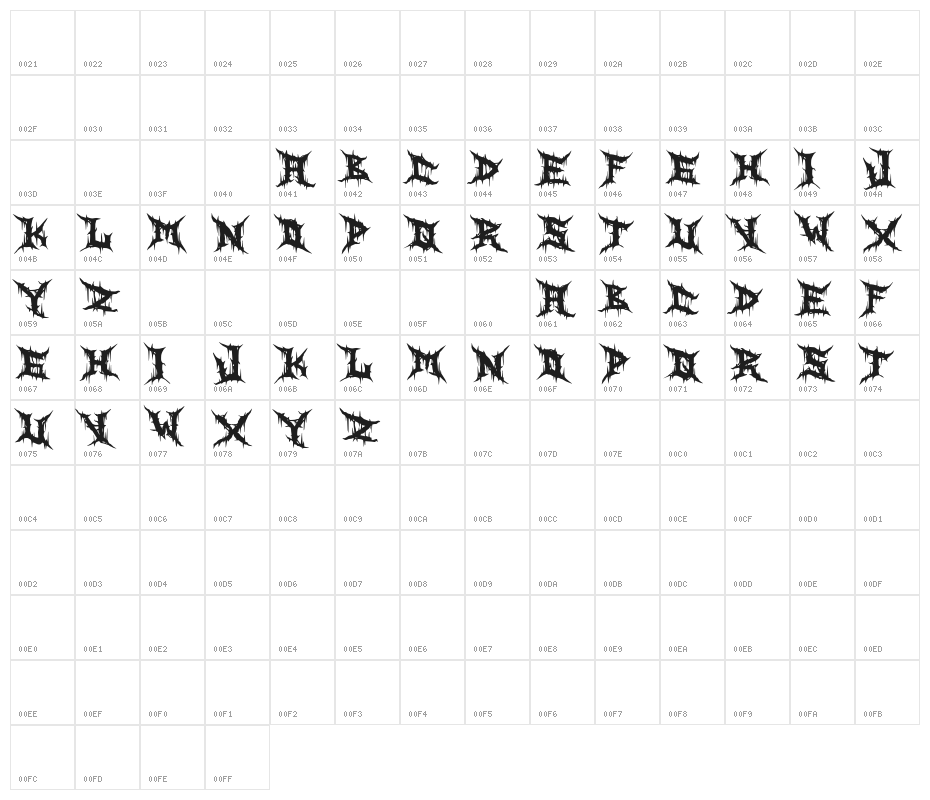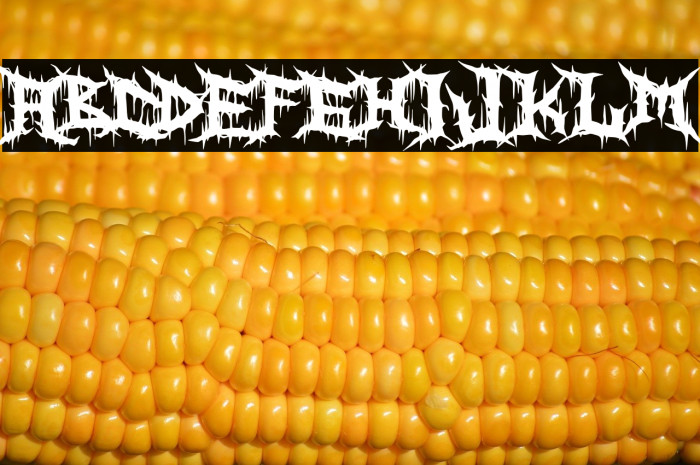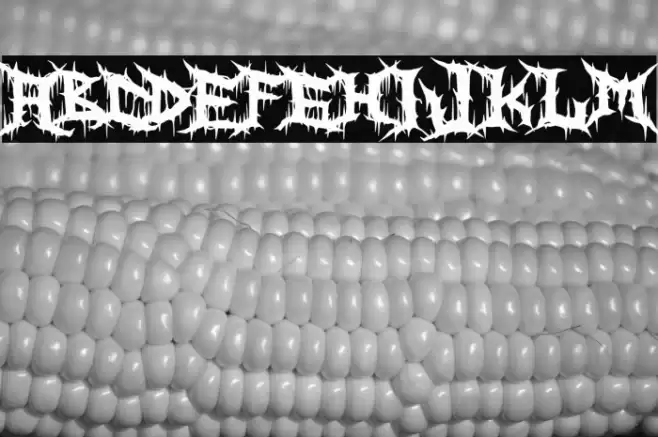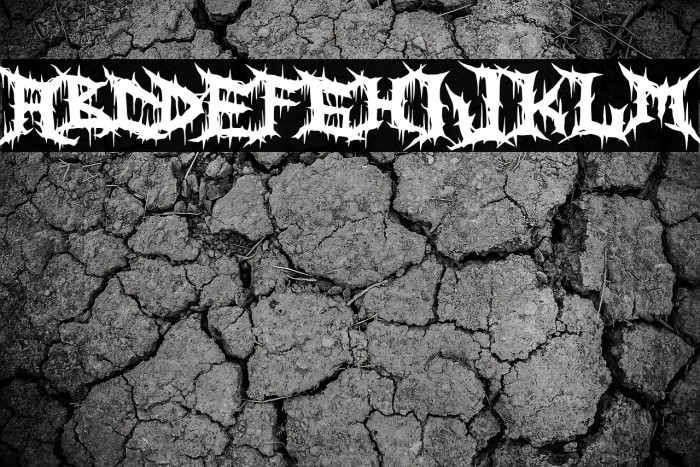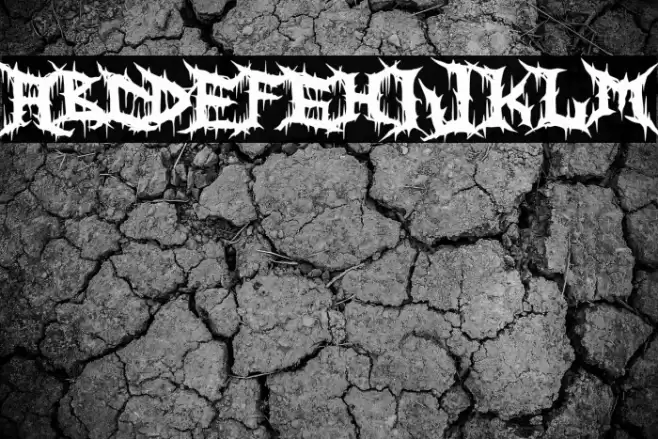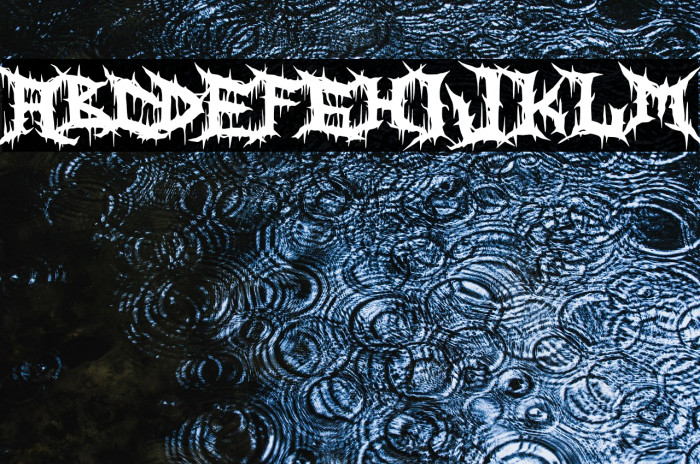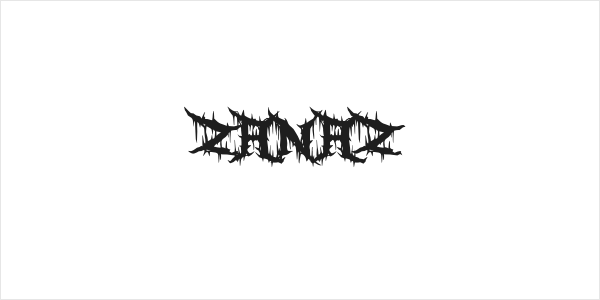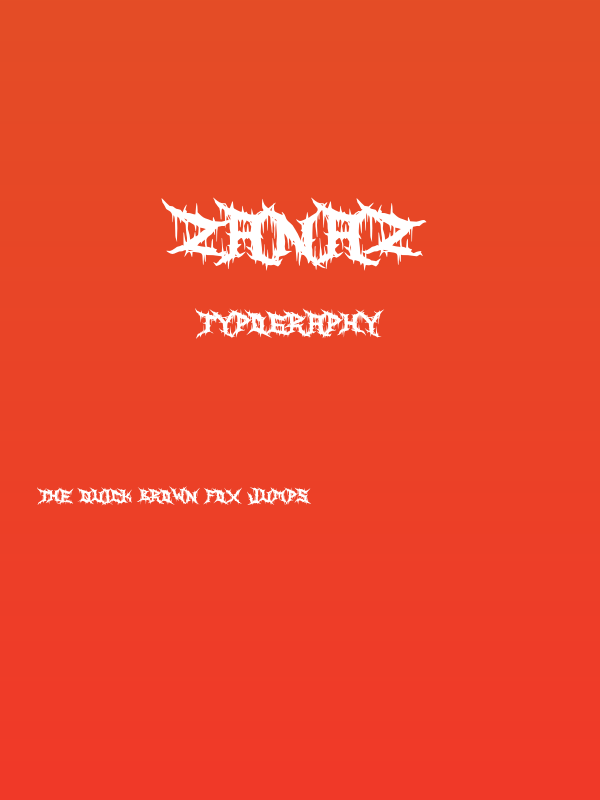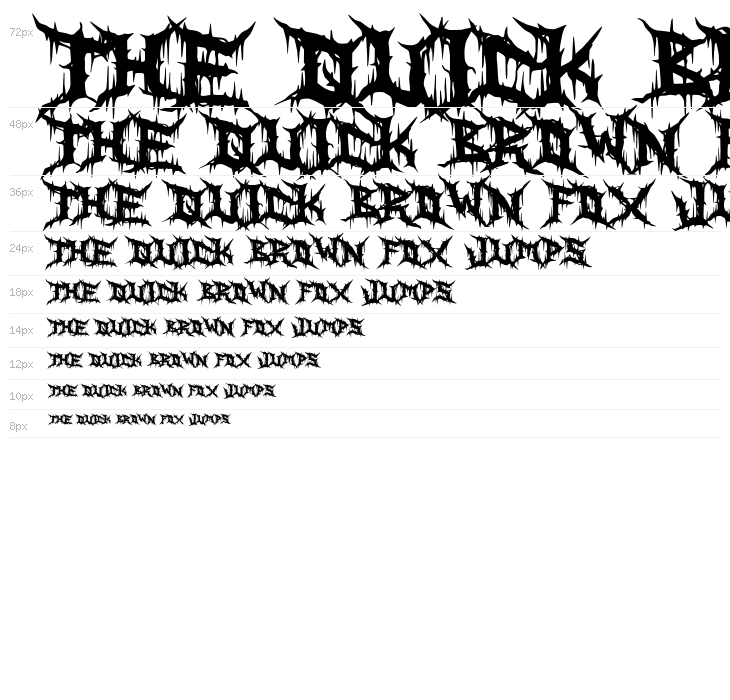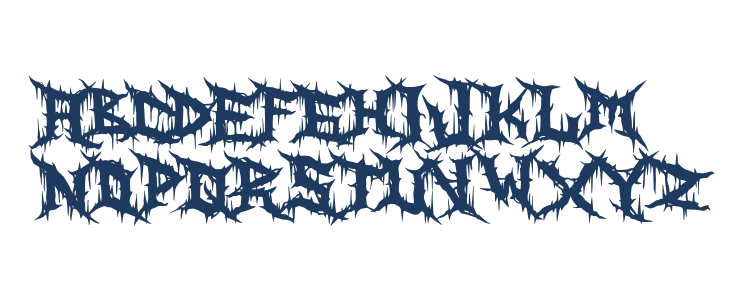
Zanaz Font
Zanaz Description
This font is a highly decorative and edgy typeface, characterized by its sharp, thorn-like extensions that protrude from each letterform. The design is reminiscent of barbed wire or thorns, giving it a rebellious and aggressive aesthetic. Each character is densely packed with intricate details, creating a visually striking appearance. The uppercase letters are particularly bold and commanding, while the lowercase letters maintain the same intense style. This font is ideal for projects that require a bold statement or a gritty, raw look.
| Use Case | Logos, Headlines |
| Proposed Projects | Album covers, event posters, extreme sports branding, or any project needing a bold, rebellious look. |